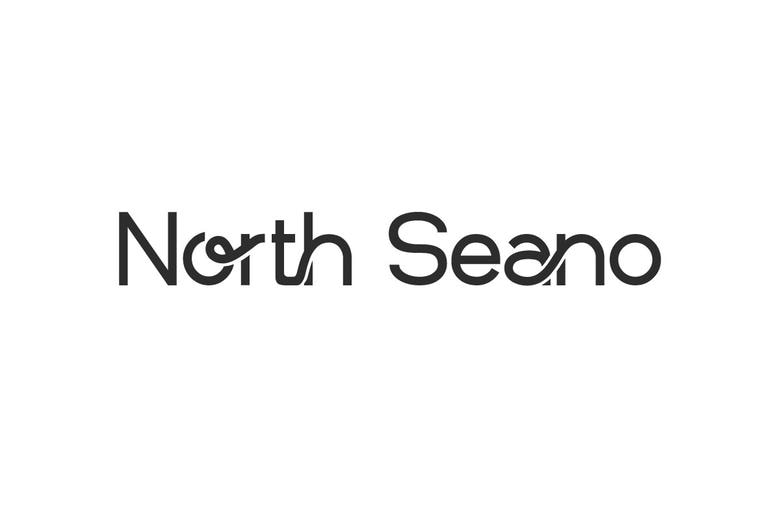
North Seano Font
North Seano is a ligature sans serif display font with interlocking alternate characters. It will be versatile to complement your business, such as accessories, café, clothing brands, craft, fashion, furniture, ornamental plant, photography, printing, publishing, retail, writing, and anything that requires an understated font look.
North Seano Sans Serif Font